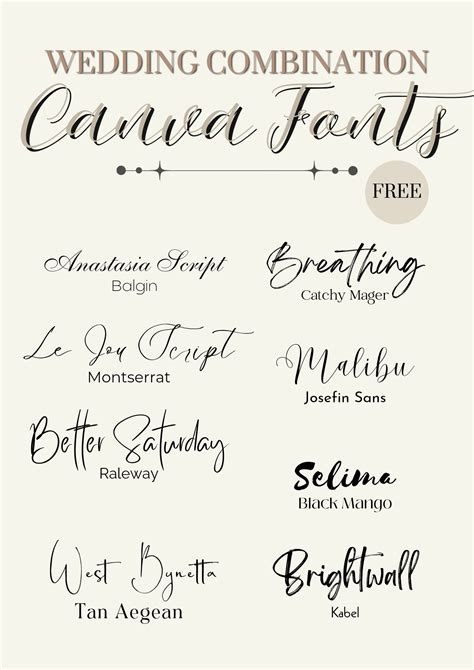
Are you planning for the perfect wedding invite? With the plethora of options in the market, it can be hard to choose the right one. But don’t worry, you don’t have to spend a lot of money to get the perfect invite. You can make one yourself with the help of free fonts available online.
Choose the Right Fonts
When it comes to wedding invites, you want the font to be elegant, sophisticated, and easy to read. To achieve this goal, you need to find the right fonts. There are a lot of free fonts available online, and you can easily find the perfect one for your needs. Just be sure to double-check the font’s origin, as some free fonts may not be suitable for commercial use.
Mix and Match Different Fonts
Once you’ve chosen the perfect font for your wedding invite, you can start to mix and match different fonts for the other elements. For example, you can pair a serif font with a sans-serif font to create a unique and modern look. You can also add a script font to give your invite a more formal and sophisticated feel. Just be sure to use fonts that are easy to read and won’t make your invite look cluttered.
Create a Balance
Creating a balance between the different fonts is also important. You don’t want to use too many fonts, as this will make your invite look chaotic and difficult to read. Similarly, using too few fonts can make your invite look bland and boring. You can create a balance by using two or three fonts that complement each other. Be sure to use fonts of different sizes and weights to create a visually appealing design.
Find the Right Color Scheme
The colors you use for your wedding invite can also make a big difference. While there are no hard and fast rules for the colors you should use, you should try to create a cohesive look that matches the tone of your special day. For example, if you’re having a traditional wedding, you could use classic colors like white, ivory, and gold. If you’re having a modern wedding, you could opt for bold colors like black and red. You can also mix and match different colors to create a unique look.
Creating the perfect wedding invite doesn’t have to be expensive or difficult. All you need is a little creativity and a few free fonts. With the right fonts, colors, and balance, you can create an invite that looks timeless, sophisticated, and unique. So, go ahead and start creating your dream wedding invite with free fonts today!